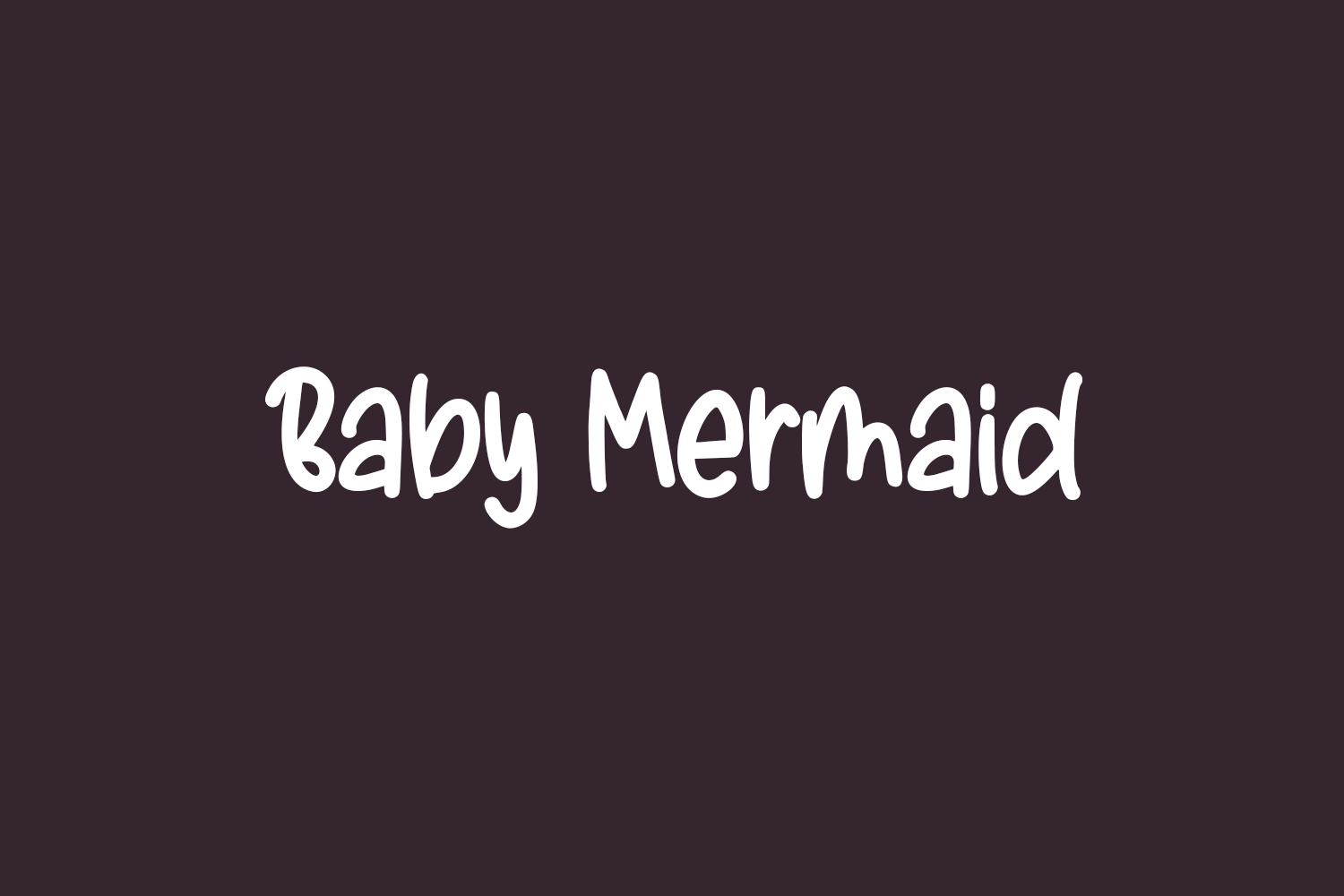
Baby Mermaid Free Font is a charming and whimsical display typeface that is perfect for designs that need a touch of cuteness. Whether you’re working on cartoon projects, children’s games, or anything that requires a lovely touch, this font is sure to be a fantastic choice.